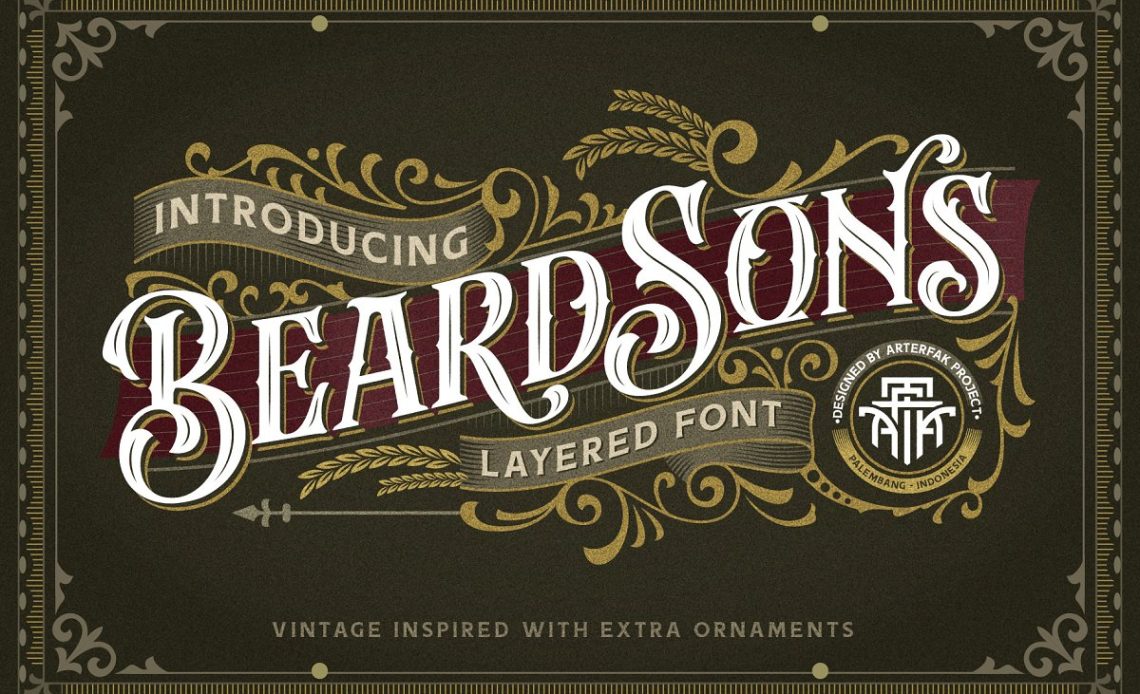
Are you looking for a font that will make your barbershop signage, logo, or badge stand out? Look no further than Beardsons - Layered Font. Created by Ahmad Ramzi Fahruddin, this vintage-inspired font features Normal, Inline, and Shadow effects, all packed into one layered font.
Crafted with a high ornamental taste, Beardsons is an all-caps font that includes uppercase, small caps, numbers and symbols, stylistic alternates, and accented characters. With multilingual support and extra ornaments included, this font is perfect for posters, labels, signboards, t-shirts, book covers, decorations, merchandise, and more.
But Beardsons isn't just versatile; it's also eye-catching and unique. Its vintage-inspired design is collected from references like old-fashioned graphics and vintage signage. And with premade ornaments in AI and EPS, you can take your designs to the next level.